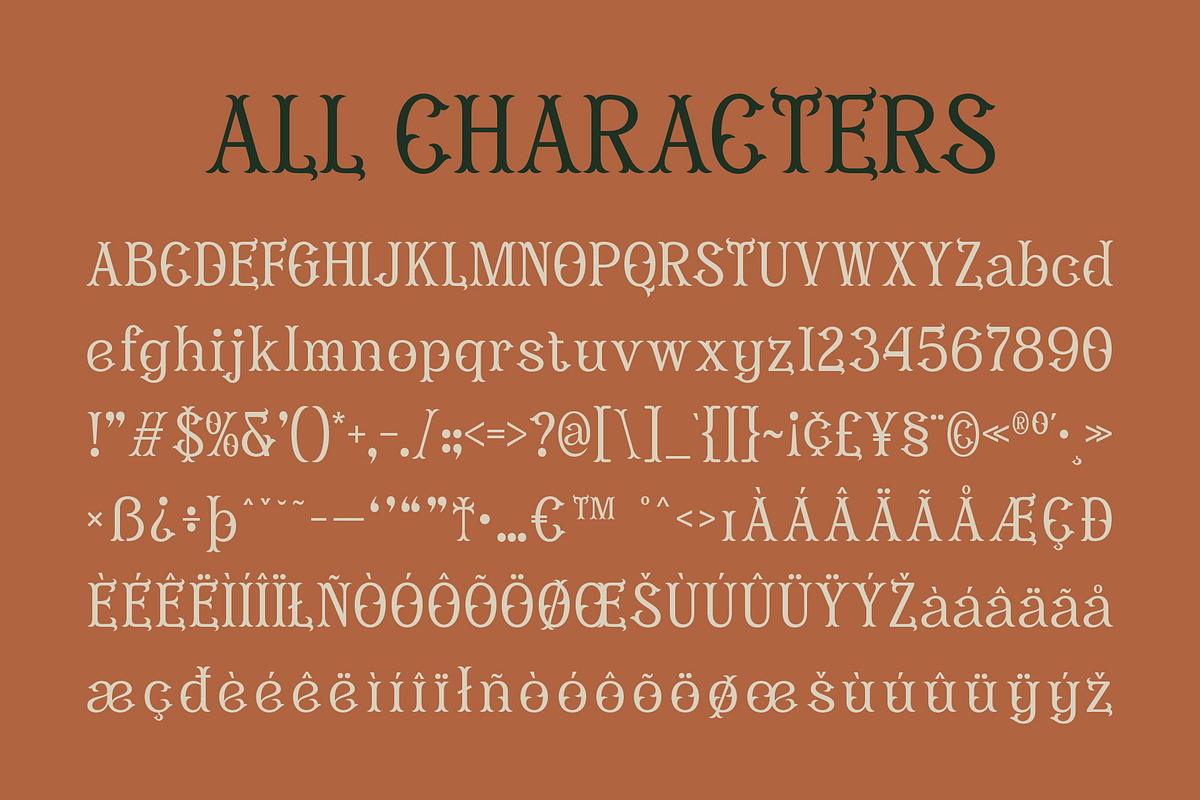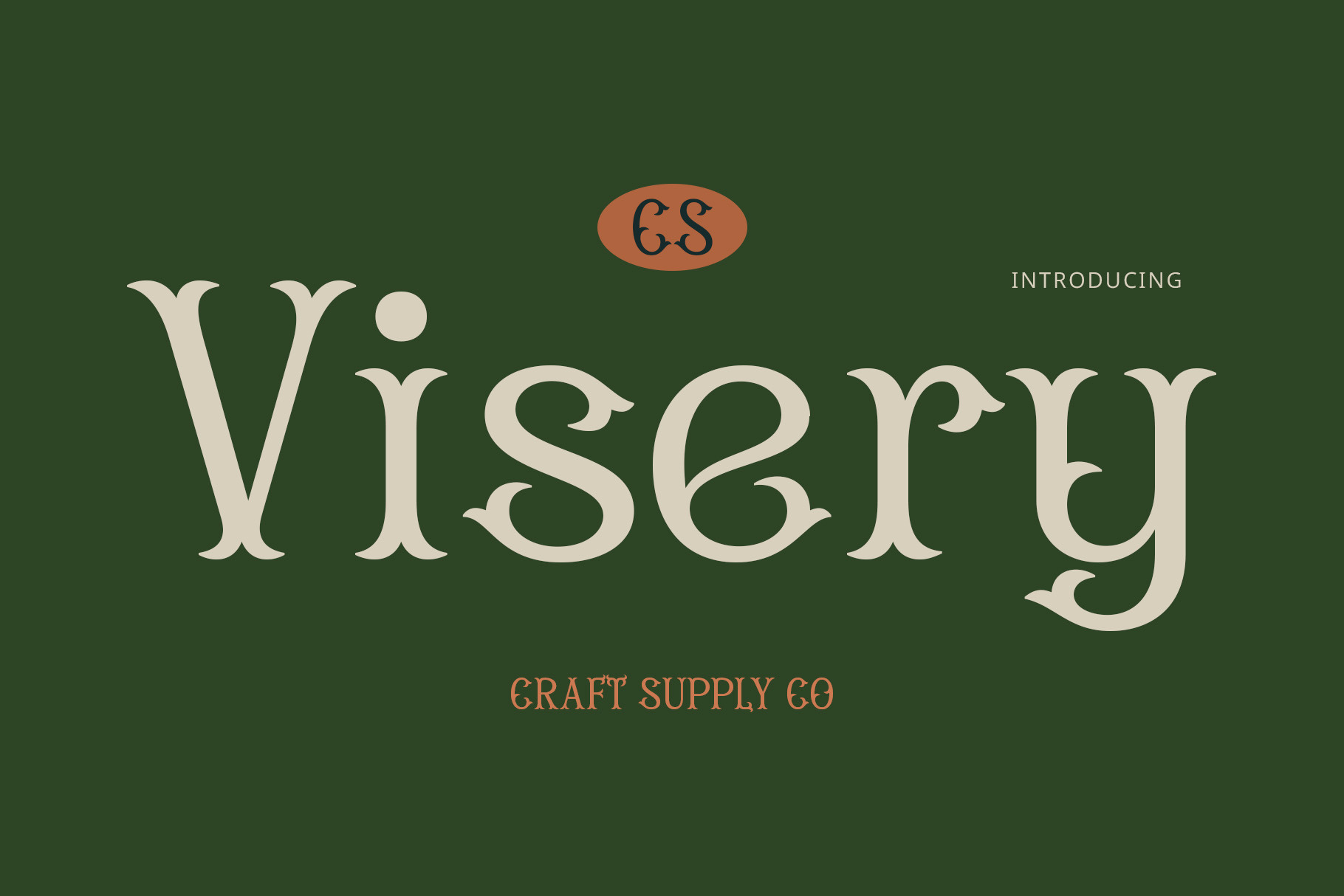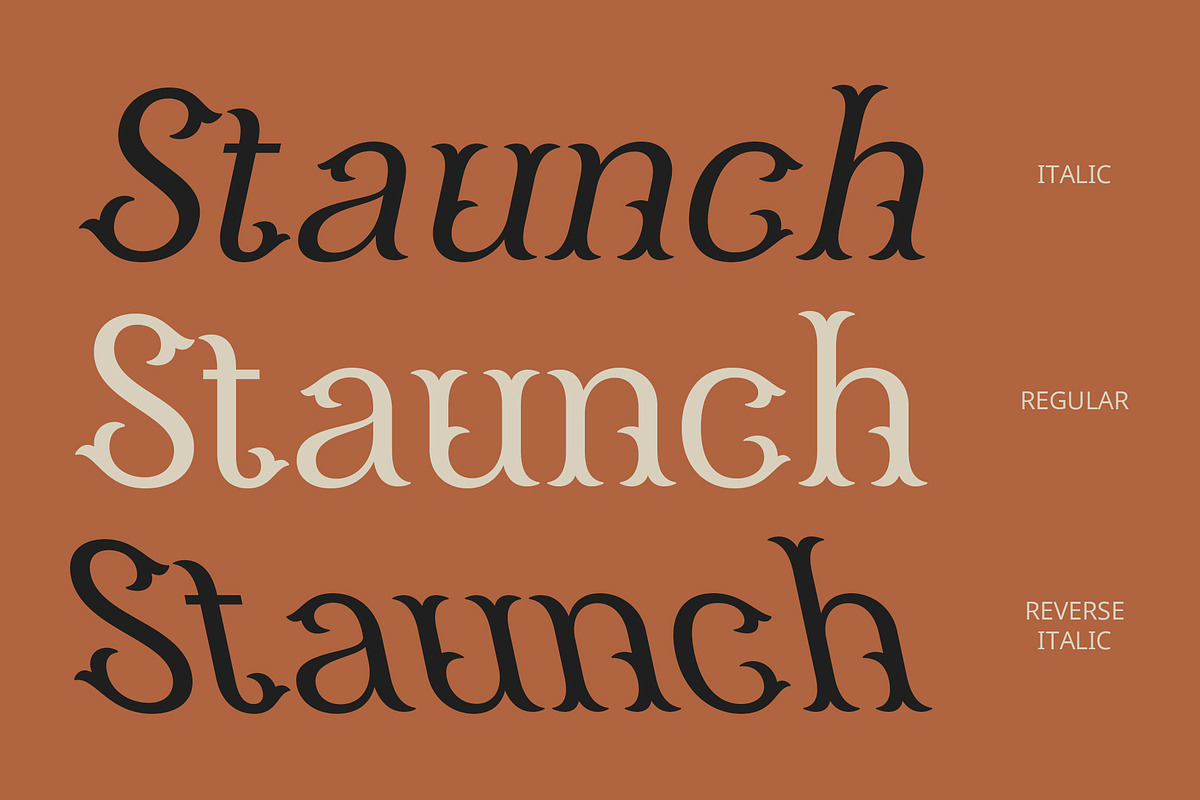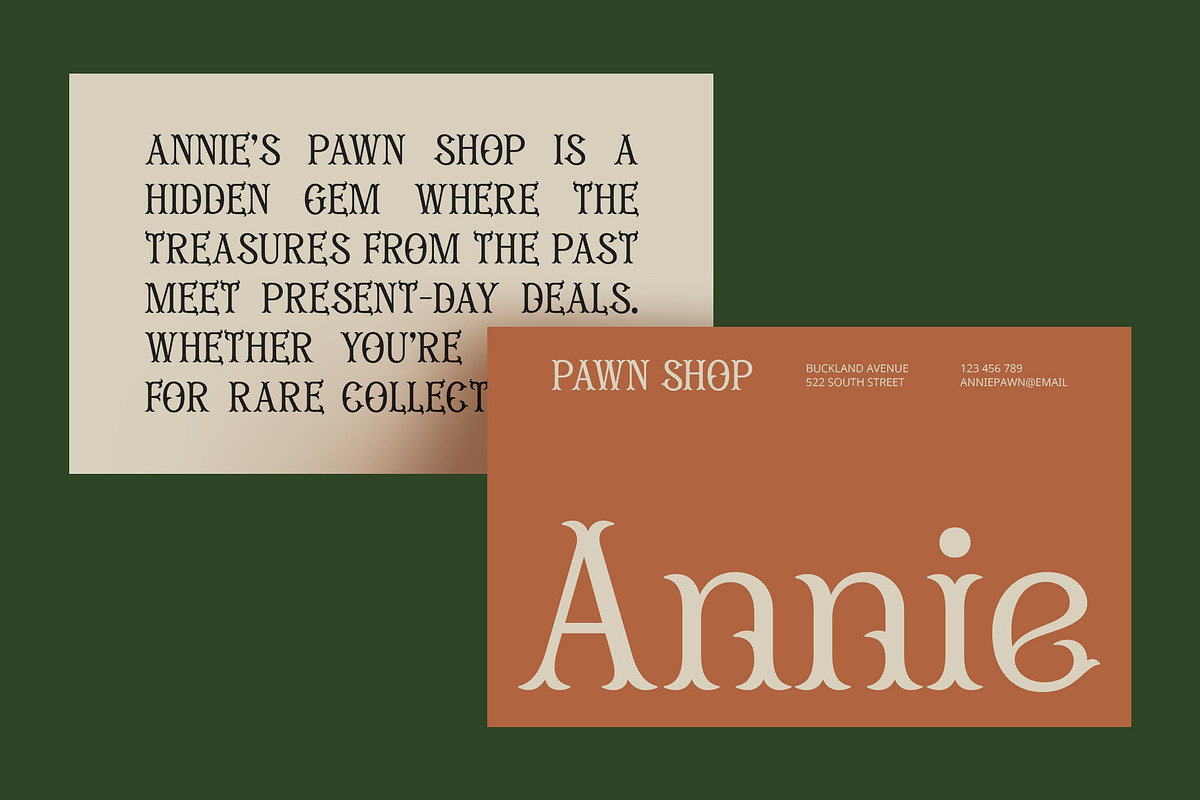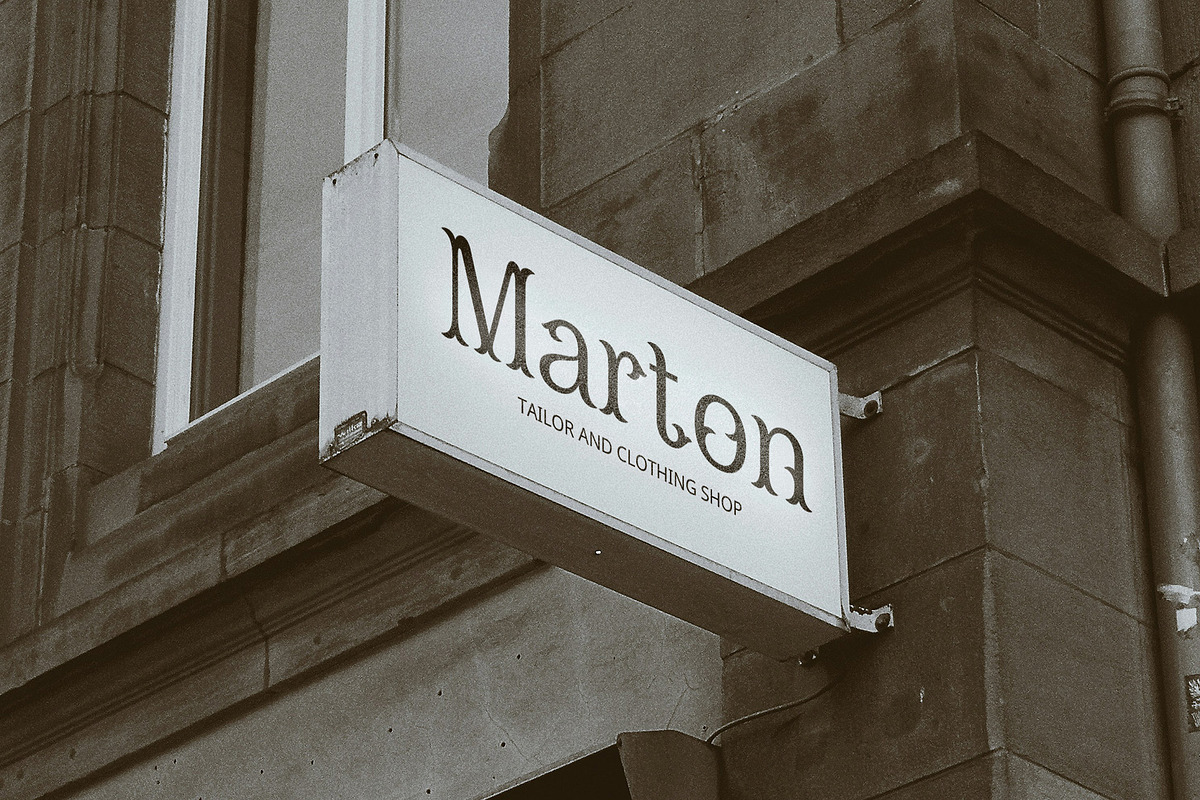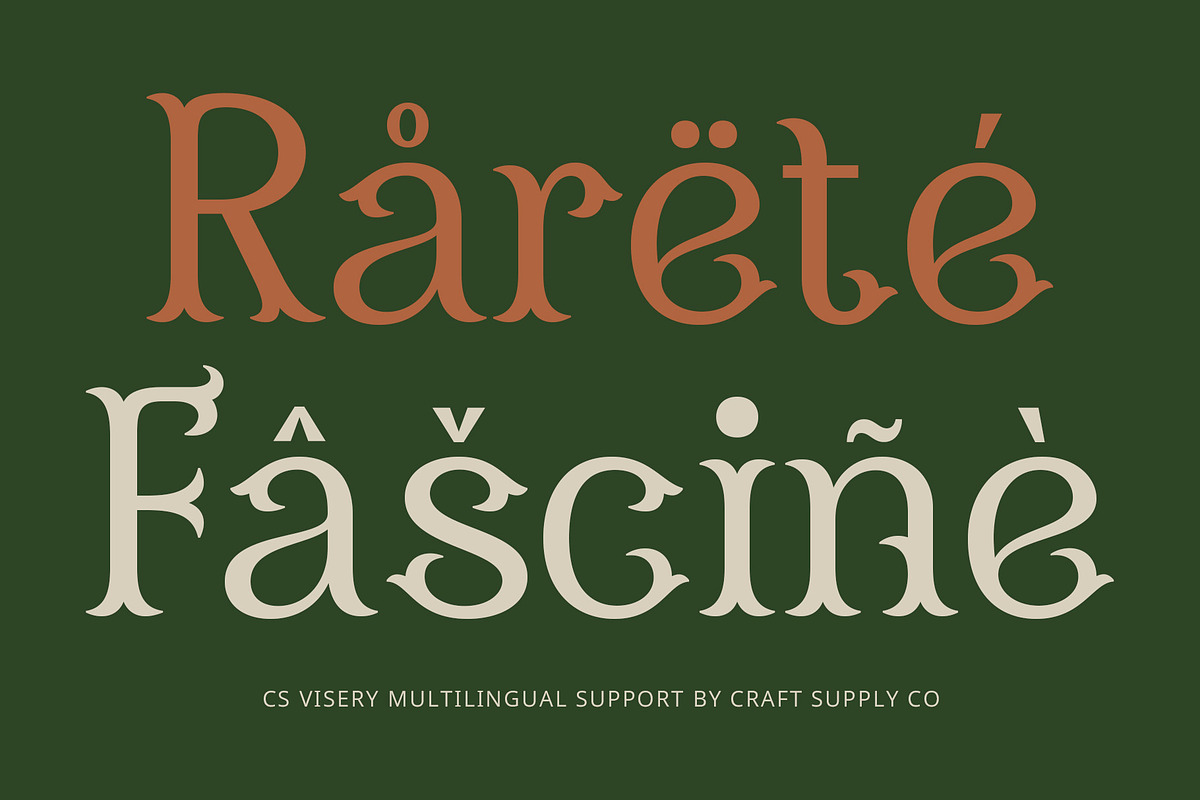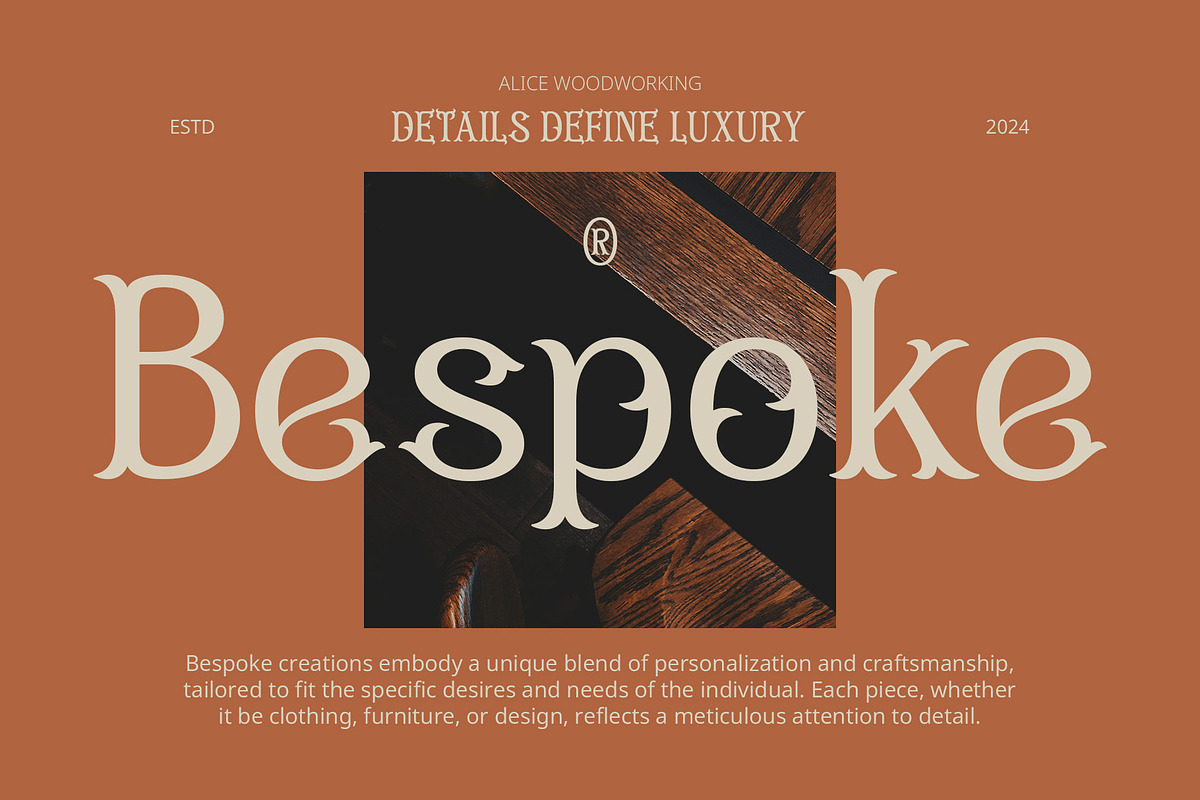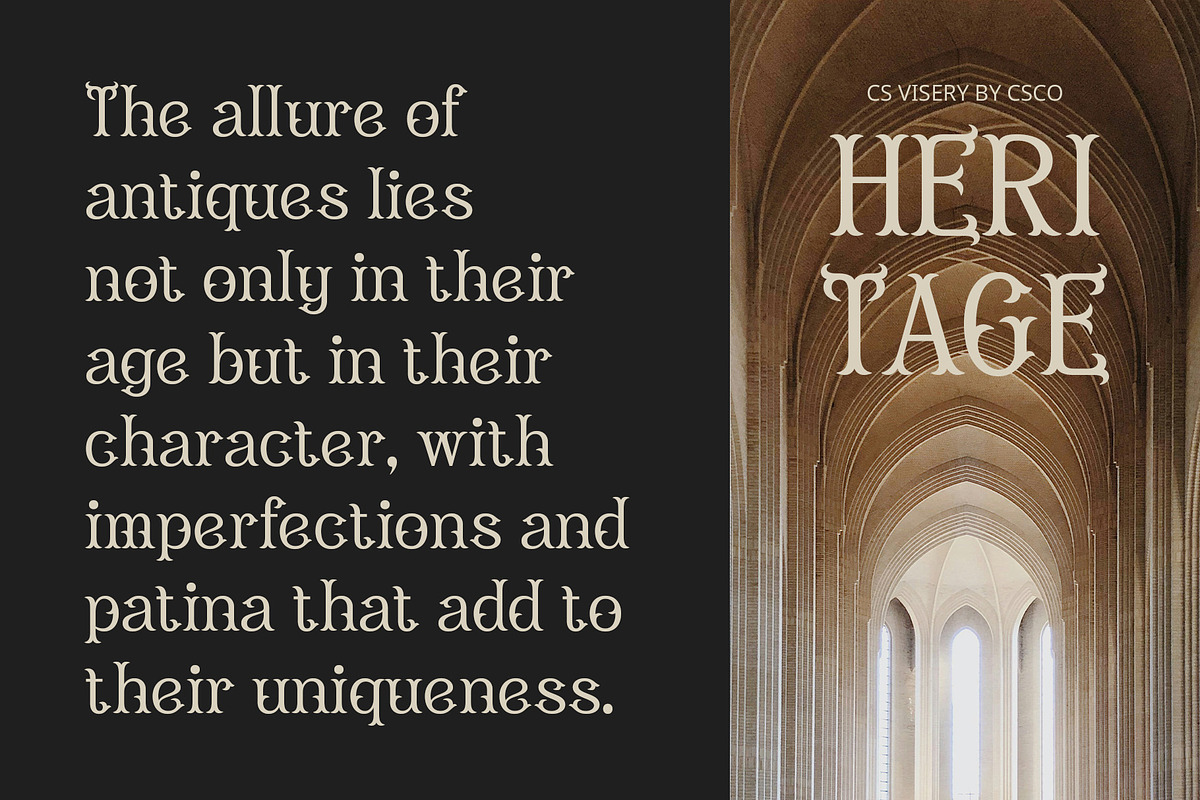
CS Visery – Display Font
CS Visery – Display Font: Where Elegance Meets Impact
Striking Visual Impression CS Visery is a modern display font characterized by its beautiful and captivating shapes. The harmonious blend of appealing aesthetic elements, including graceful curves and sharp lines, creates a striking visual impression that draws the eye. Its unique design ensures that it stands out in any project, making it a perfect choice for those seeking to make a statement.
Delicate Details for Enhanced Elegance Featuring intricate details and elegant ornamentation, CS Visery elevates the sophistication of your designs. This font’s delicate touches enhance its overall aesthetic, making it ideal for creative applications such as branding, invitations, and artistic endeavors. It exudes a sense of refinement, adding a touch of luxury to any visual project.
Excellent Readability for Clear Communication Despite its visually prominent features, CS Visery excels in readability, ensuring that your message is conveyed clearly. The balance between striking aesthetics and legibility makes it suitable for various contexts, from high-end branding to captivating artwork. This font is designed to leave a lasting impression while effectively communicating your ideas.
- CS Visery Regular
- CS Visery Italic
- CS Visery Reverse Italic